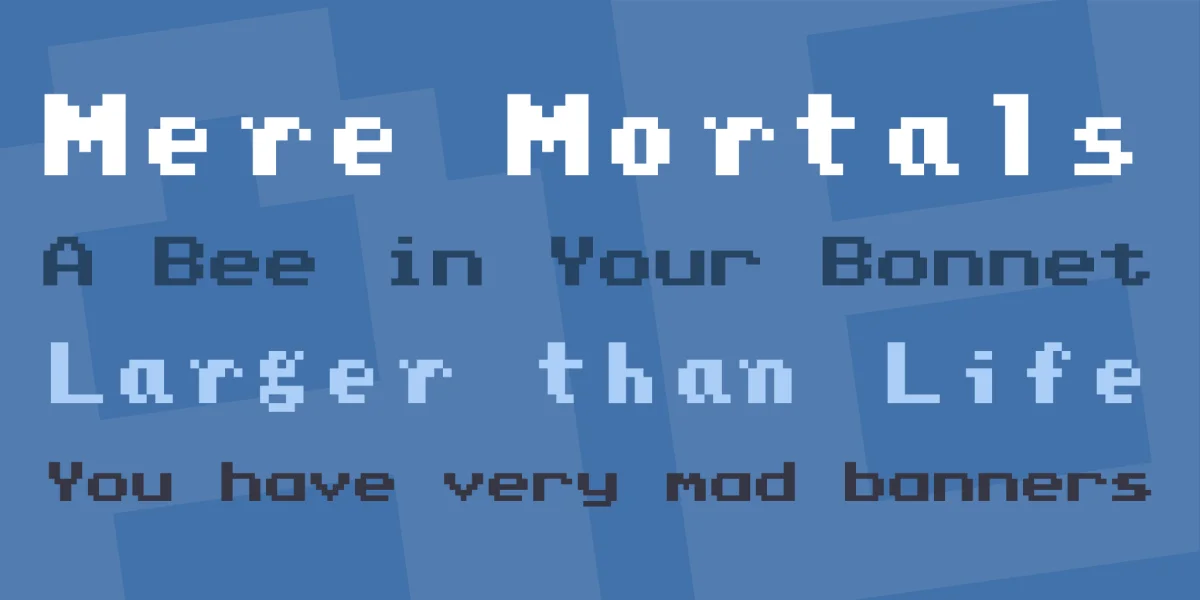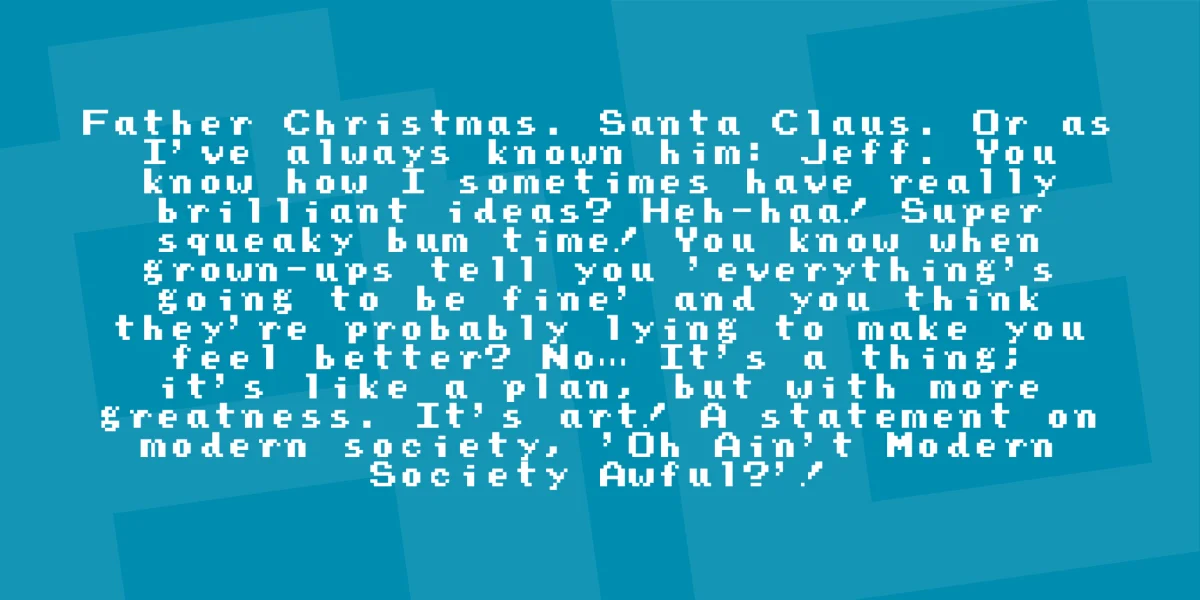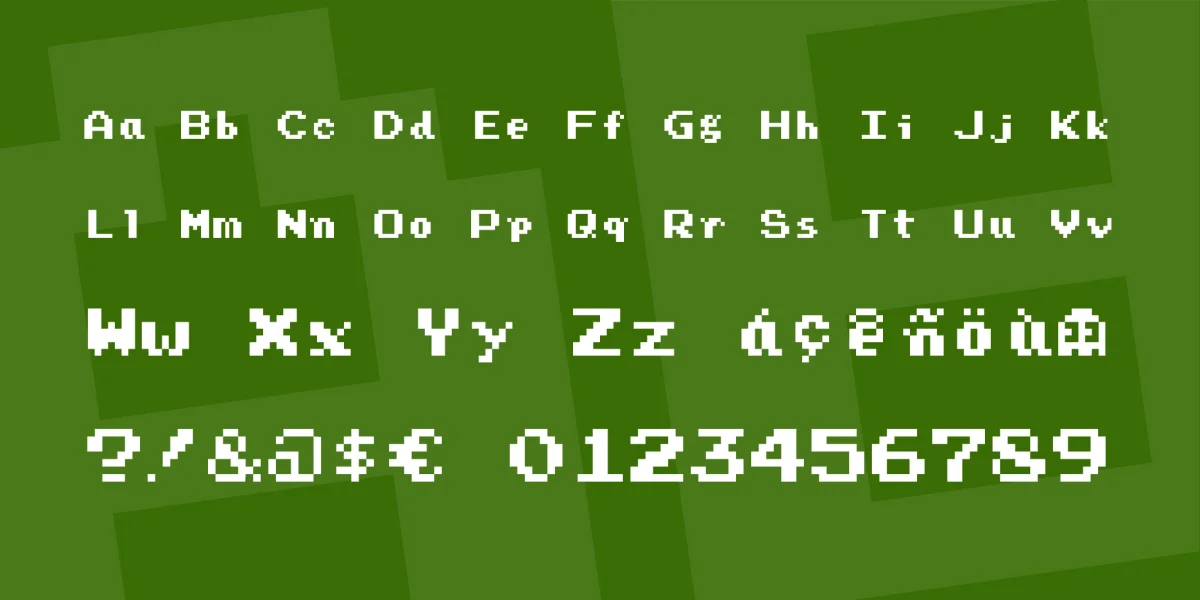
The definitive 1980s video game font-- and unlike most of the other retro game fonts found out there on the 'net, this one includes lowercase and international characters! (Lowercase letters are a combination of those from various Namco games including Gaplus and Legend of the Valkyrie.)
Also includes Press Start K, an alternate version of the font as found in the KGen emulator.